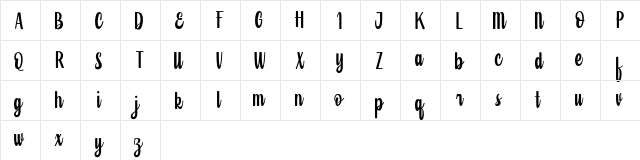
Suballie FREE Regular
Foundry Inspiratype
DesignerInspiratype
Design Context for Suballie FREE Typeface
Suballie FREE is a composed and adaptable typeface that performs quietly and consistently across a wide range of design contexts.